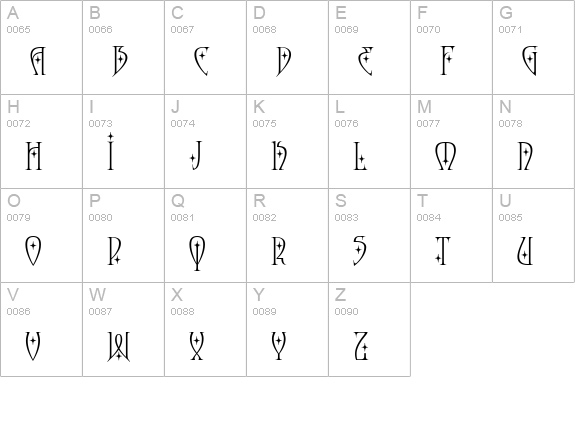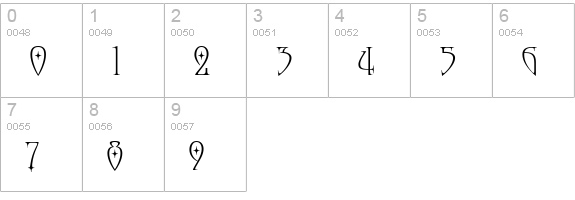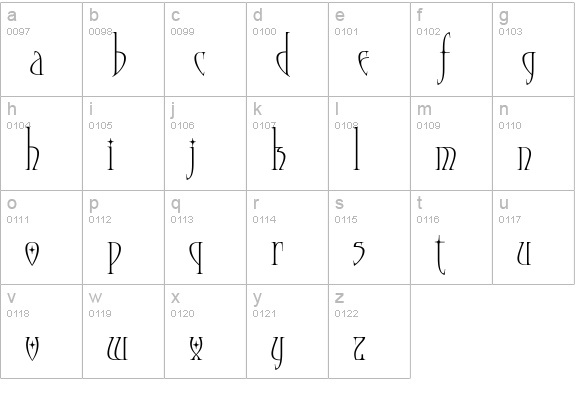
Moonstone Stars Font Details
Moonstone Stars font is a whimsical and enchanting typeface that adds a touch of magic to any design project. With its delicate swirls and twinkling stars, this font exudes a sense of mystery and wonder. Perfect for creating eye-catching titles, headers, and invitations, Moonstone Stars font is sure to captivate and delight your audience. What's even more exciting is that Moonstone Stars font is available for free download at FontsMarket.com. Yes, you read that right - this stunning font can be yours at no cost at all! Don't miss out on the opportunity to add a touch of celestial beauty to your designs with Moonstone Stars font. Download it today and let your creativity shine bright like the stars.